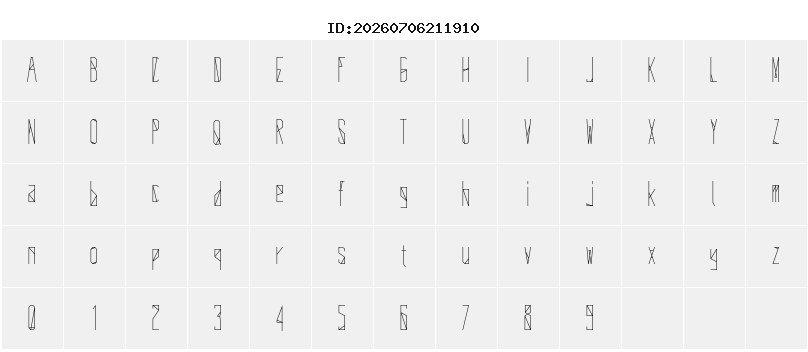
Delta Universe Preview
• Font Name: Delta Universe
• Designer: greenegg
• Description: Delta Universe Fonts (greenegg / South Korea)
About Delta Universe.otf
Delta Universe.otf is a modern, elegant sans-serif font designed for ultimate readability and visual harmony. Perfect for branding, headlines, web design, and print materials.